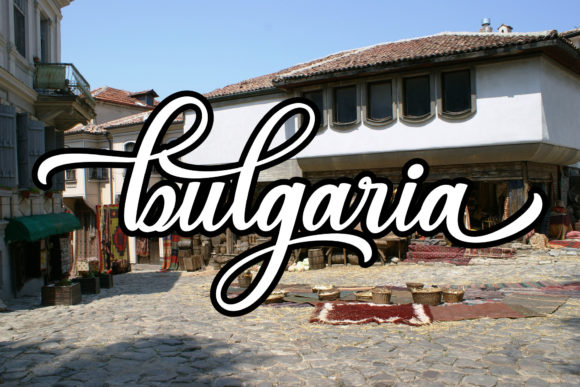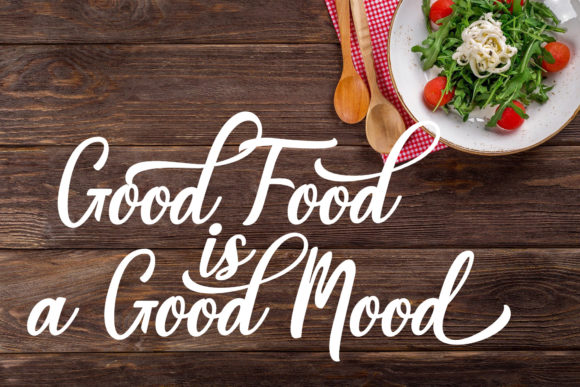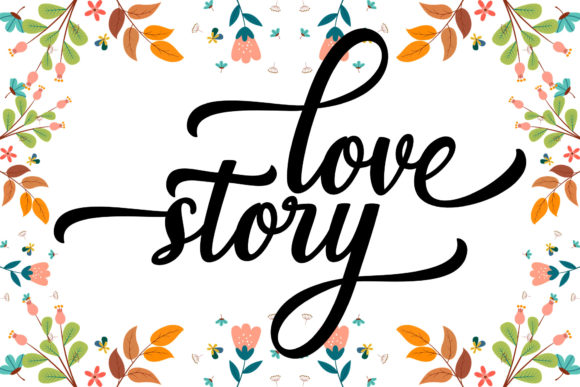
Unleashing the Beauty of Handwritten Charm
There’s something magical about discovering a new font that perfectly captures the essence of your creative vision. Imagine being transported to a world of elegant script and whimsical charm, where every letter seems to dance across the page. This is precisely the moment when you’ll fall in love with the Beauty Rhapsody Font.
Beauty Rhapsody Font is a masterfully crafted, handwritten font that effortlessly blends classic calligraphic influences with a modern, fresh twist. Its PUA encoding ensures seamless access to an array of glyphs and swashes, making it a dream come true for designers seeking to add a touch of sophistication to their projects.
Beauty Rhapsody Font Key Features
- Unique Characteristics: The font features elegant, flowing lines and ornate details, giving it a luxurious and sophisticated feel, perfect for high-end fashion, beauty, and luxury brands.
Beauty Rhapsody Font Review
When I first laid eyes on Beauty Rhapsody Font, I was immediately struck by its whimsical charm ✨. The font is a masterful blend of elegance and playfulness, making it perfect for a wide range of design projects, from wedding invitations to fashion magazines.
The font’s script-like curves and flowing lines are a joy to work with ✨, and its versatility allows it to adapt seamlessly to different font sizes and combinations. I particularly appreciate the many OpenType features, which enable users to create beautiful ligatures and swashes.
- Whimsical and elegant design
- Script-like curves and flowing lines
- Seamless adaptation to different font sizes and combinations
- Many OpenType features
While Beauty Rhapsody Font is an excellent choice for many projects, there are a few limitations to consider ⚠️. The font’s complexity can make it challenging to use in smaller text sizes, and some characters may appear slightly inconsistent.
- May not be suitable for very small text sizes
- Some characters may appear inconsistent
Overall, I’m thoroughly impressed with Beauty Rhapsody Font ✨. Its unique blend of elegance and playfulness makes it a standout choice for designers looking to add a touch of whimsy to their projects.
Tips for Getting the Most Out of Beauty Rhapsody Font
Use Beauty Rhapsody Font for creative projects, such as invitations, brochures, and social media graphics.
Pair Beauty Rhapsody Font with other elegant fonts for a sophisticated look.
Experiment with different font sizes and colors to create a unique visual effect.
Beauty Rhapsody Font is ideal for:
Beauty and wellness branding
High-end product packaging
Alternatives to Beauty Rhapsody Font
Great Vibes Font is a modern, elegant script font that works well for titles, headings, and creative designs. It’s ideal for projects that require a sophisticated, yet playful feel. Compared to Beauty Rhapsody Font, Great Vibes Font has a more refined and precise look, making it suitable for formal and high-end designs.
Carolyna Pro Font is a beautiful, handwritten script font that’s perfect for feminine and elegant designs. It’s ideal for projects that require a touch of whimsy and romance. Compared to Beauty Rhapsody Font, Carolyna Pro Font has a more fluid and organic look, making it suitable for designs that require a lot of character.